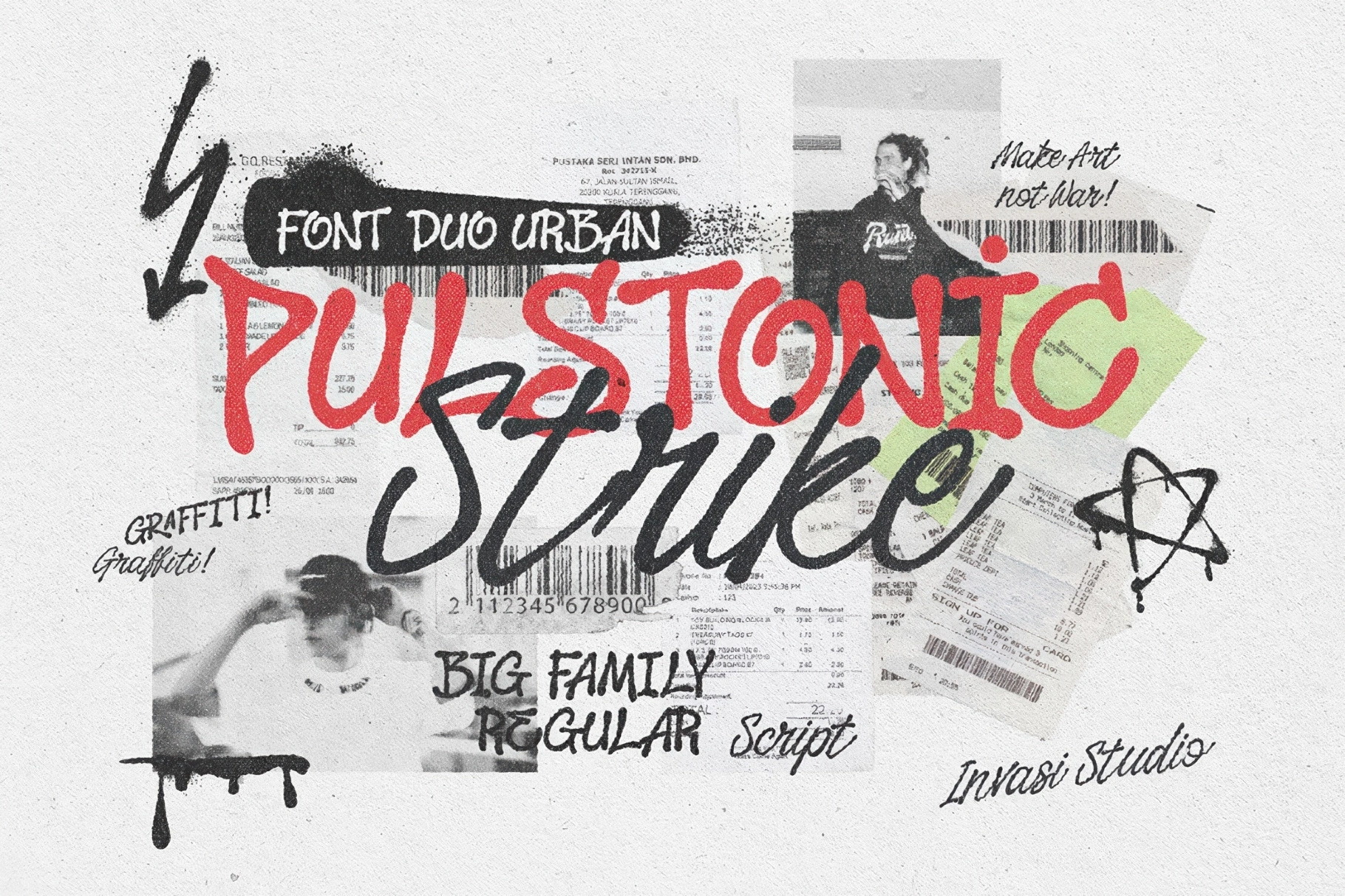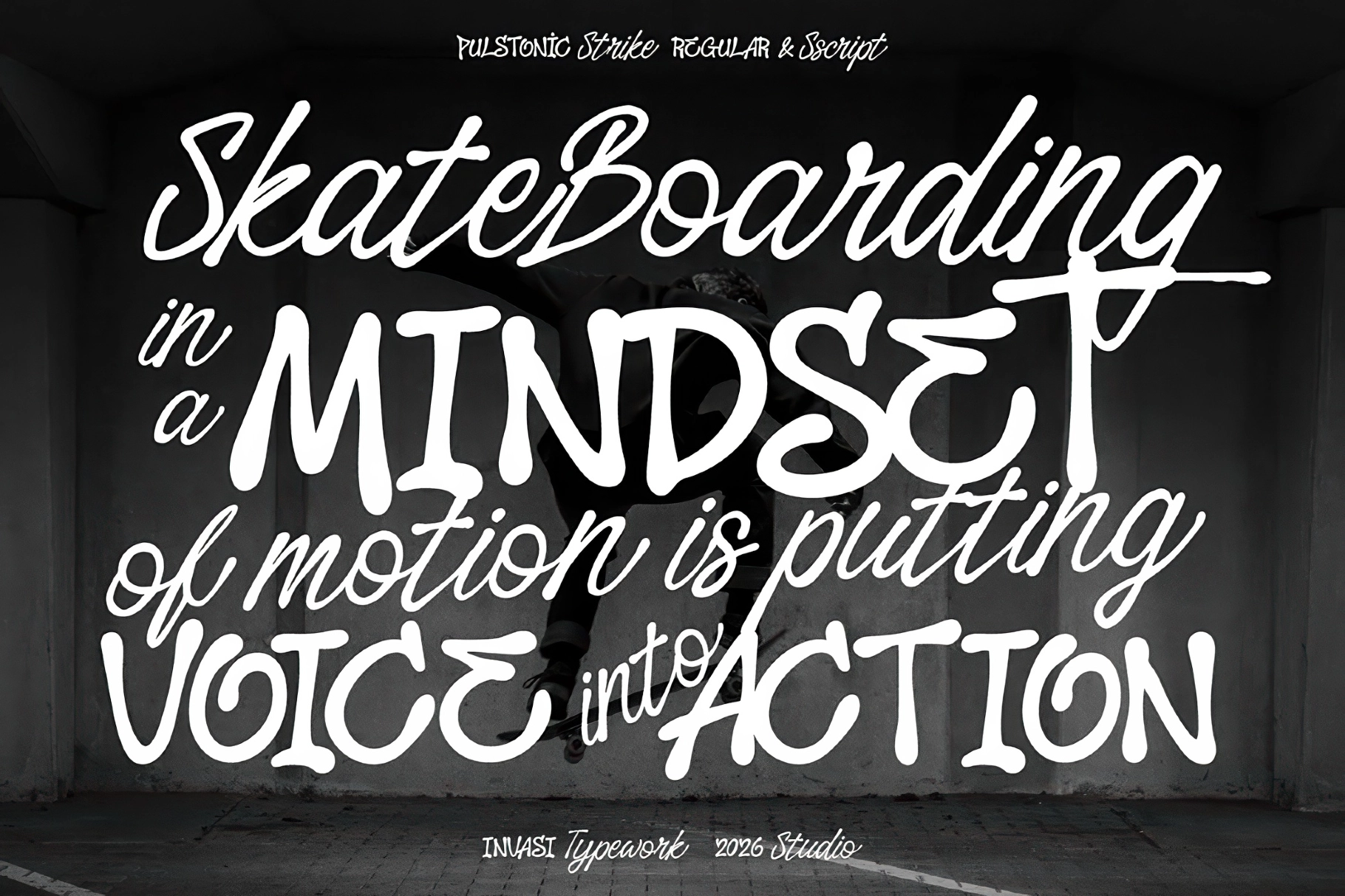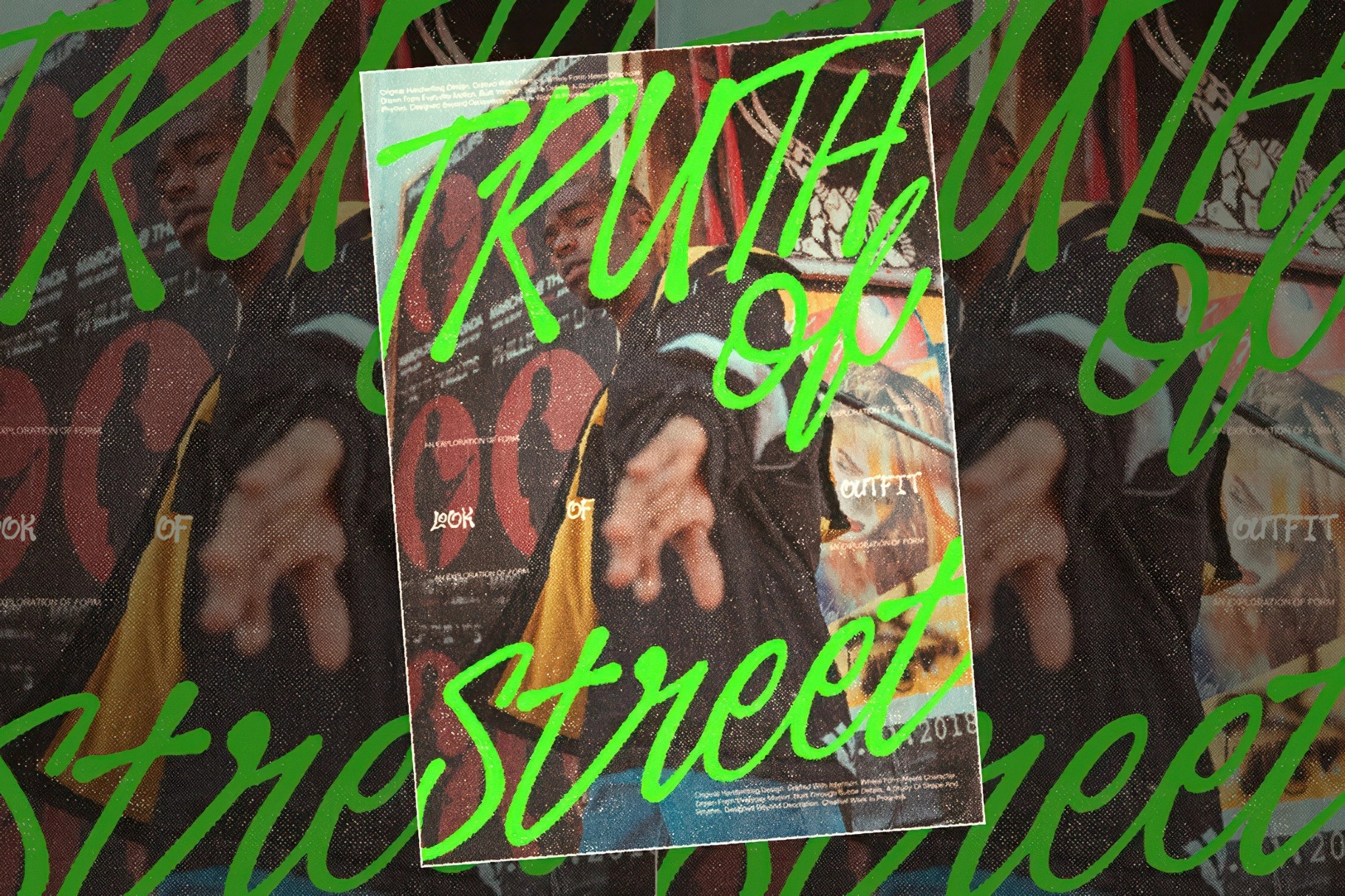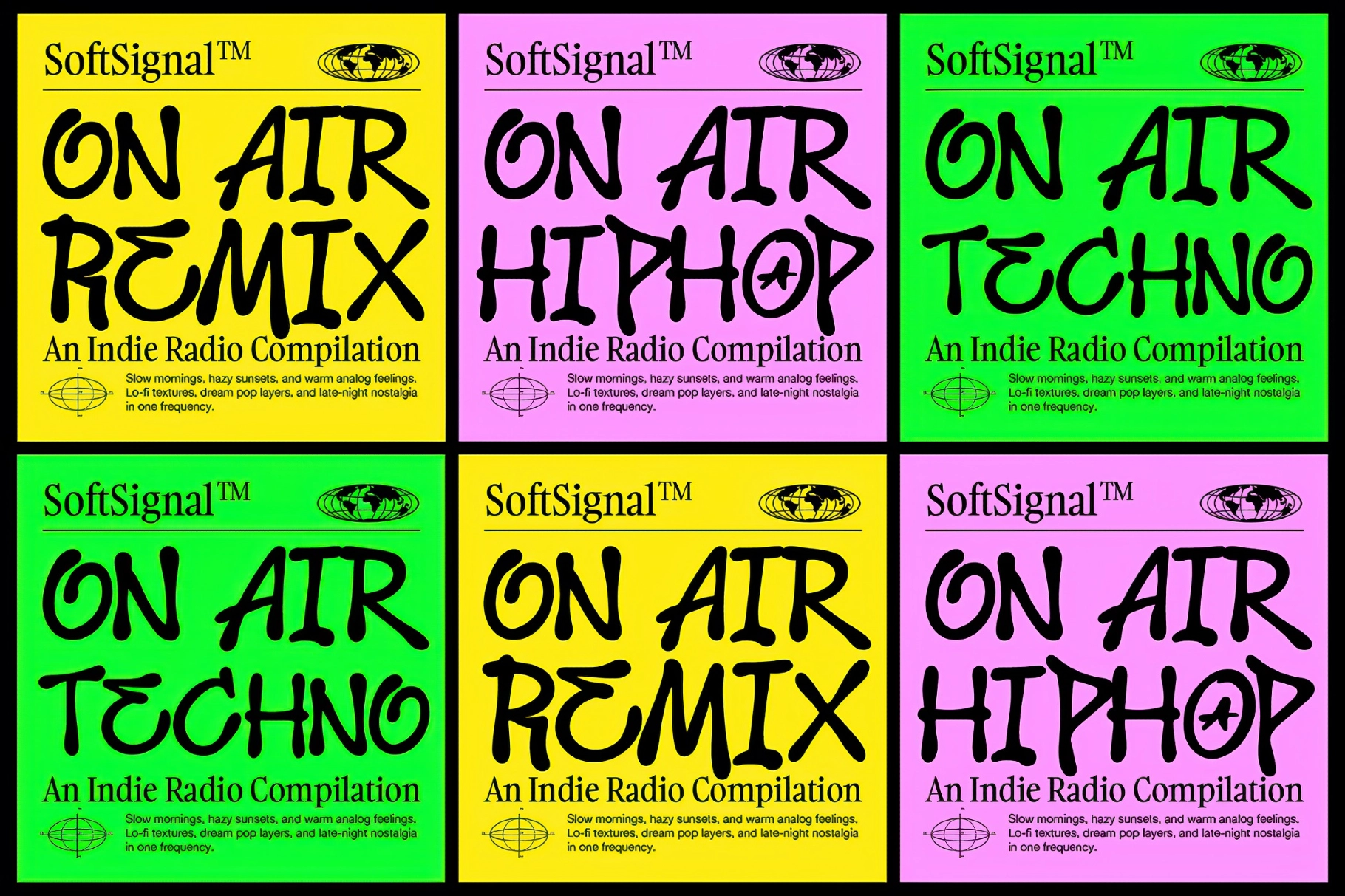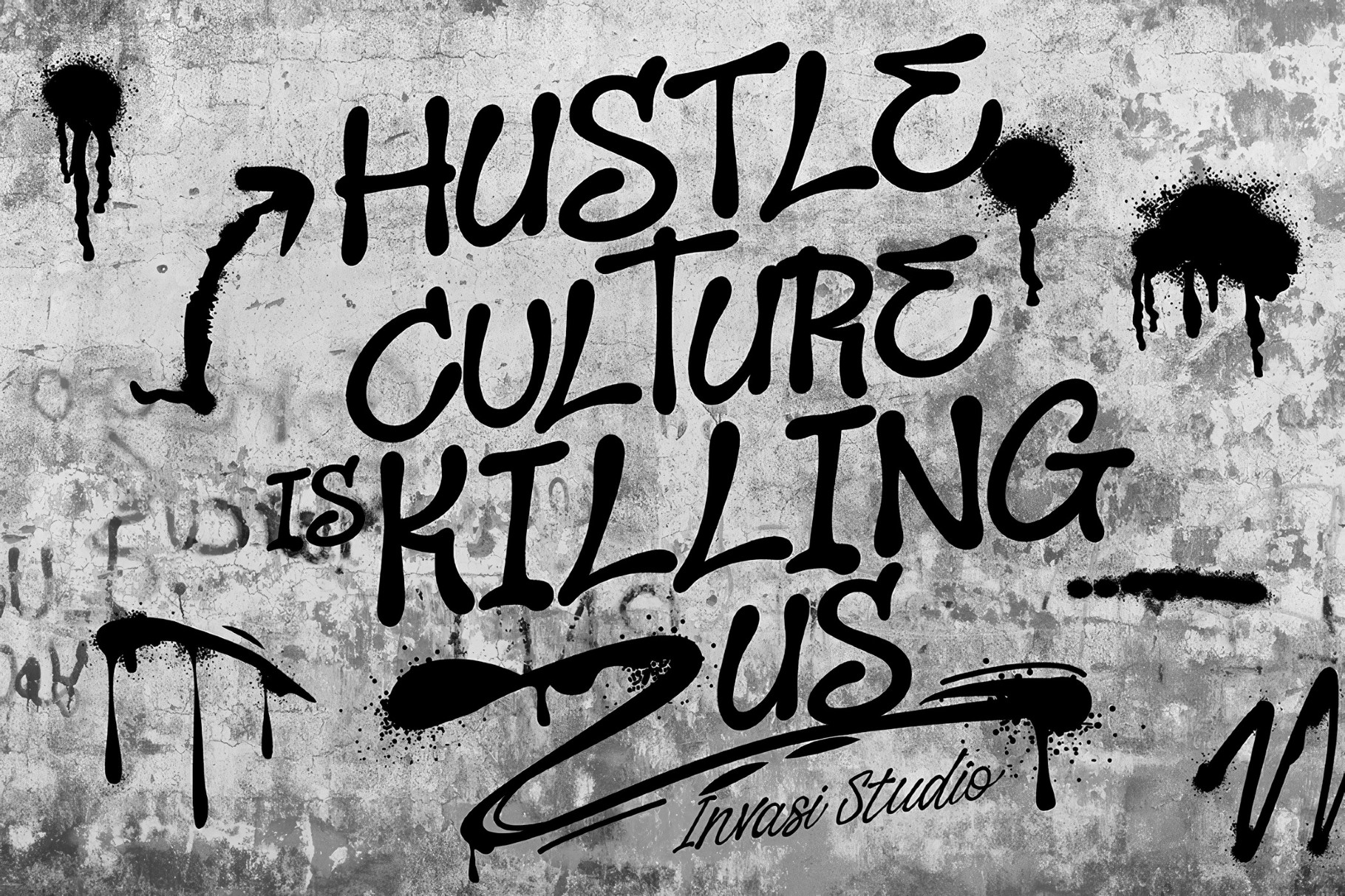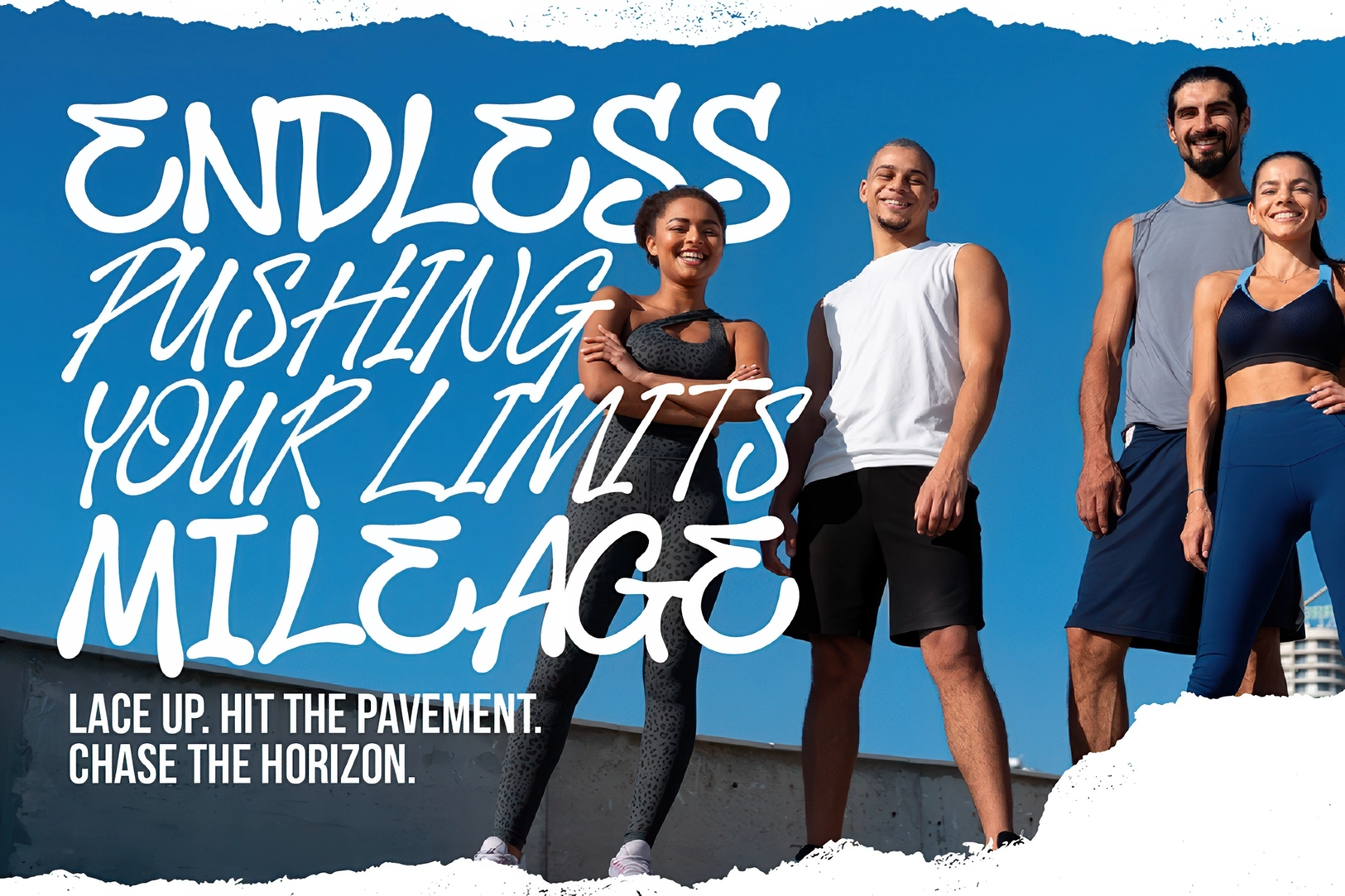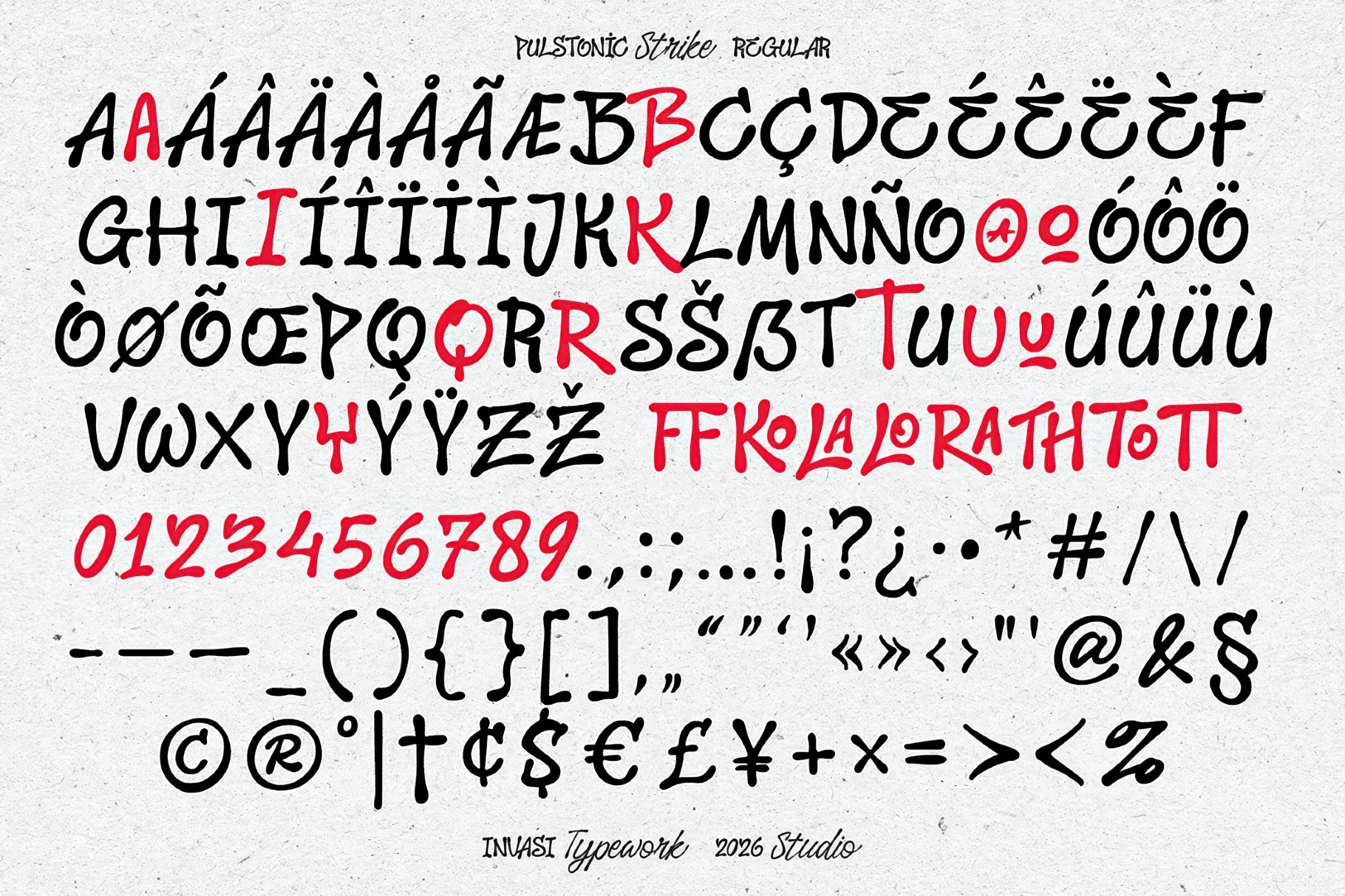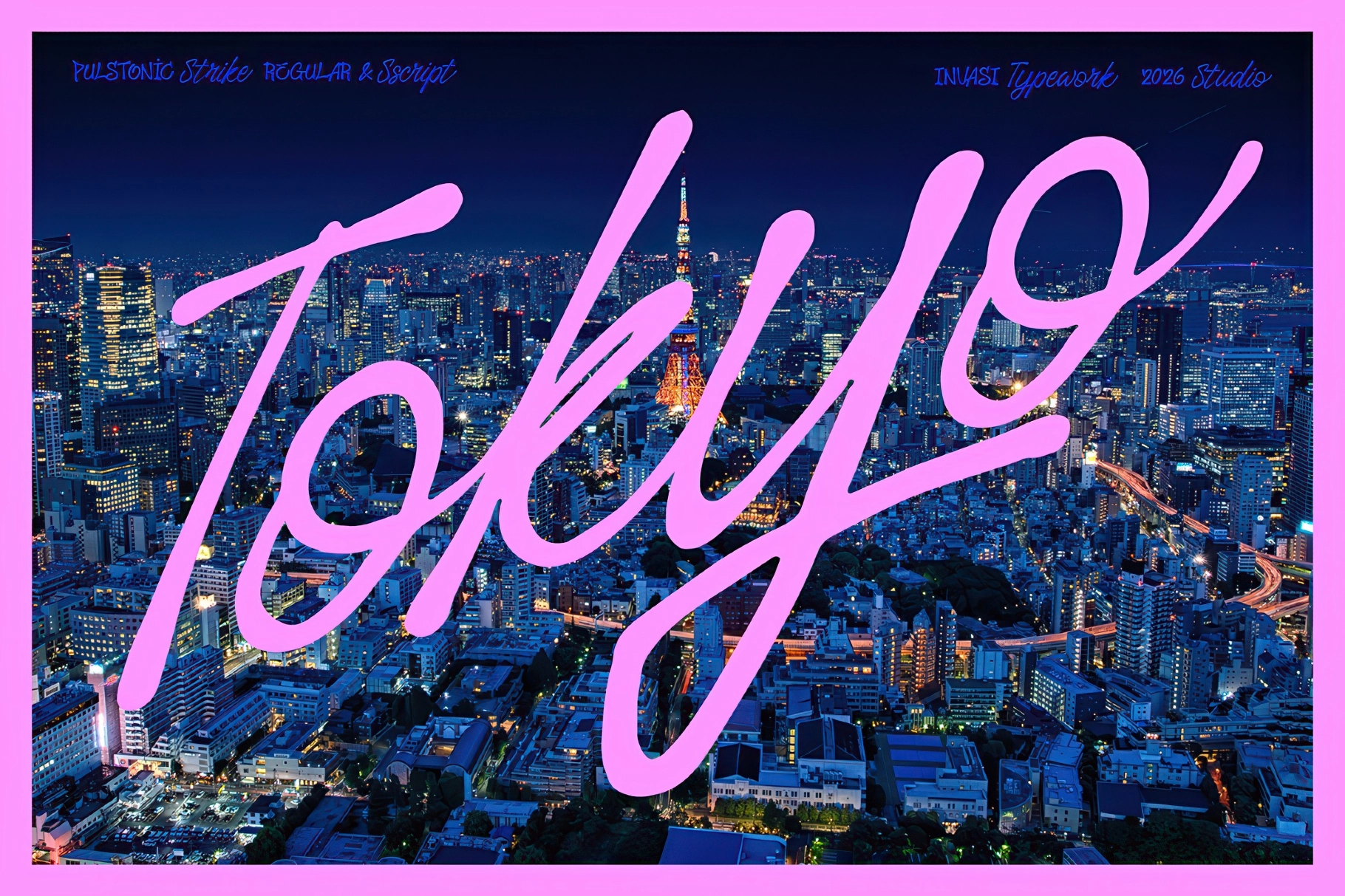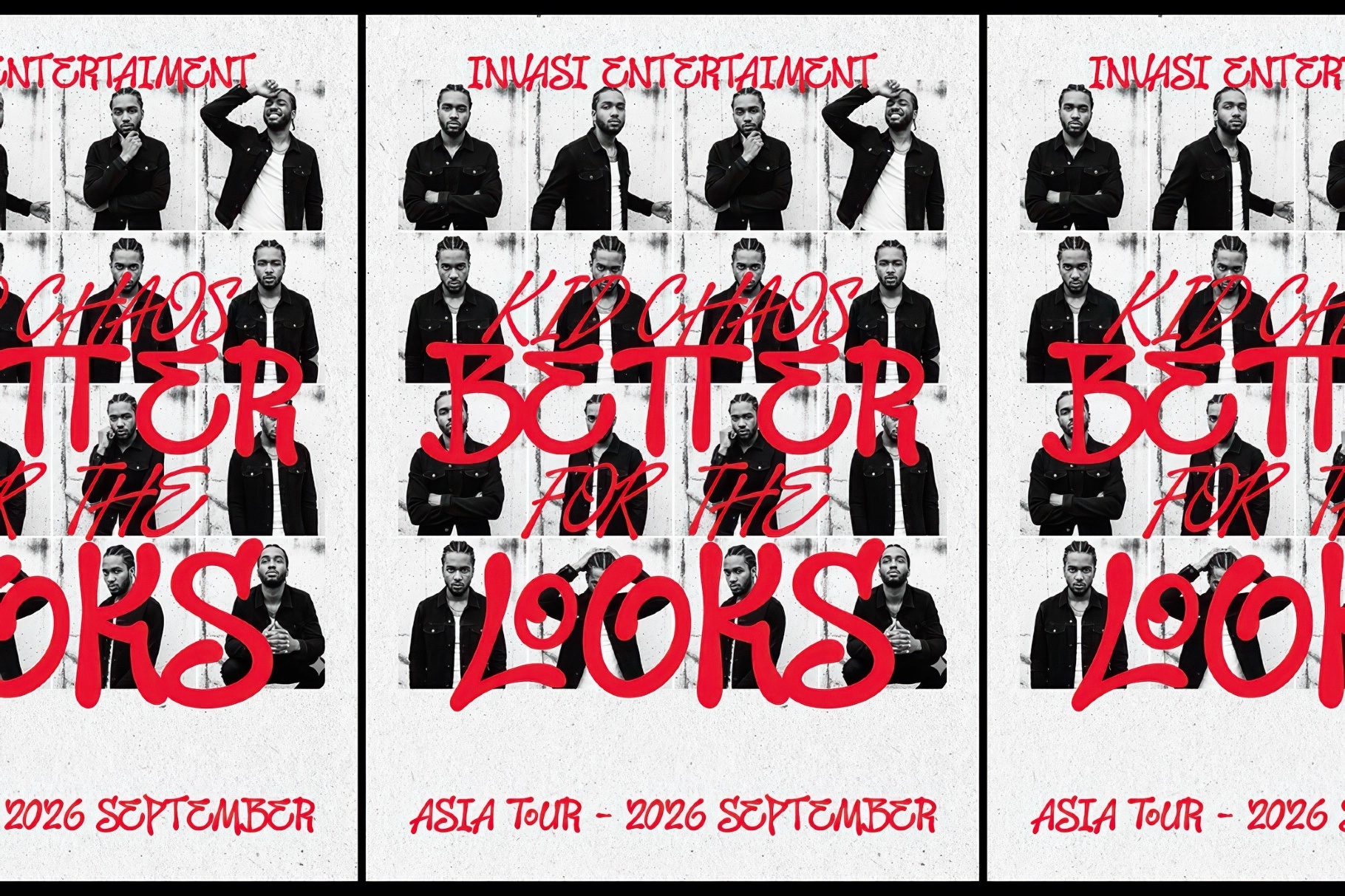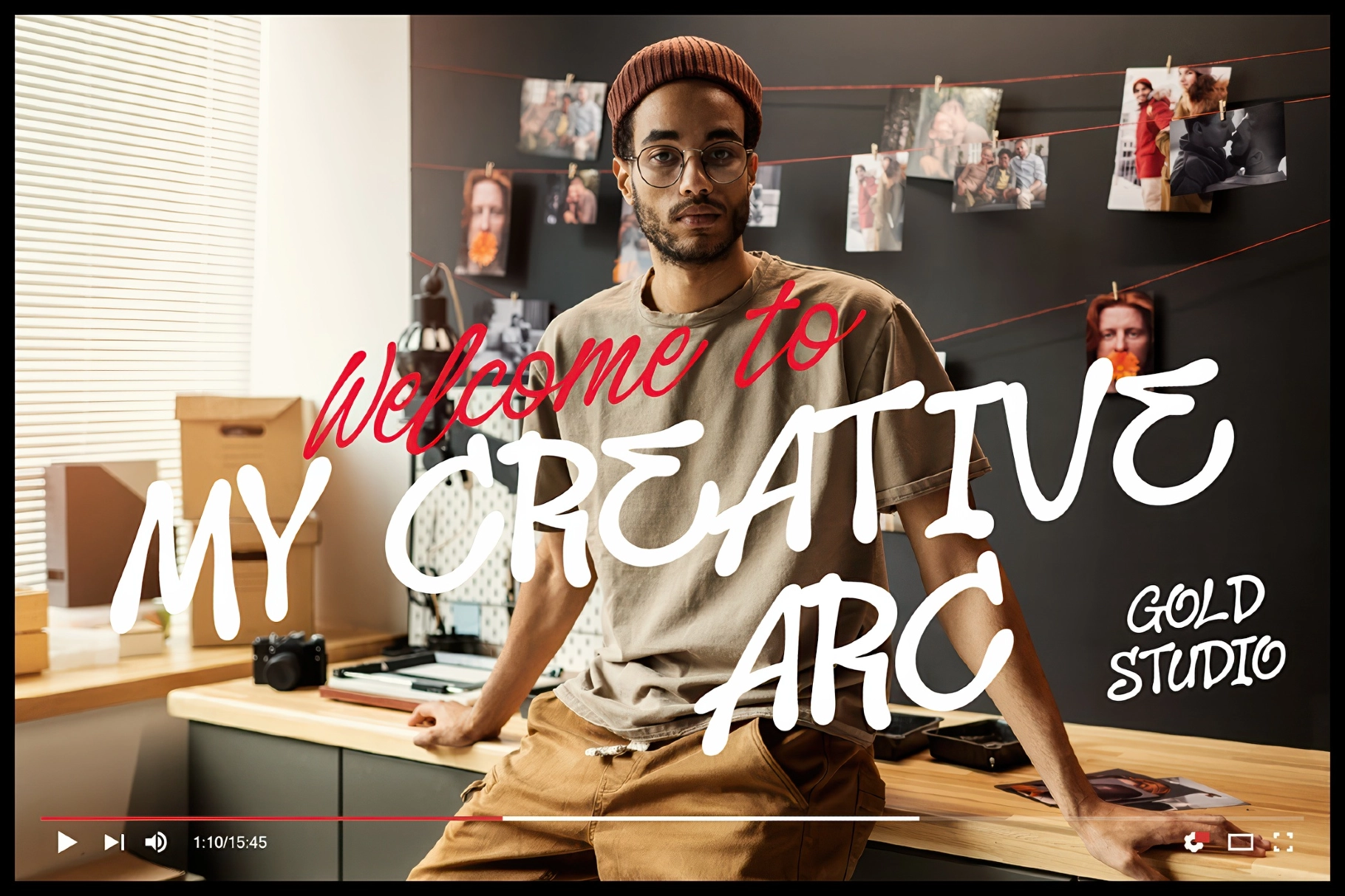
Pulstonic Strike – Urban Font Duo
Pulstonic Strike arrives straight off the wall — the loose, confident hand of a paint marker moving fast, lettering made for shutters, skate ramps, and flyposted alleys. It's a graffiti font duo built as a pair: Strike Regular, a fat bouncing marker face that shouts in caps and lowercase alike, and Strike Script, a wet-ink signature.
Extra ligatures and alternate letters keep the lines hand-drawn, no two tags alike. They feel at home on gig and event posters, streetwear and skate graphics, mixtape and album covers, protest and zine layouts, or a brand that wants to sound like the street.
- two fonts: Strike Regular (marker display) and Strike Script (ink script);
- uppercase, lowercase, extra ligatures and alternate letters;
- multilingual Latin language support;
- numerals, punctuation, and currency ($, €, £, ¥).